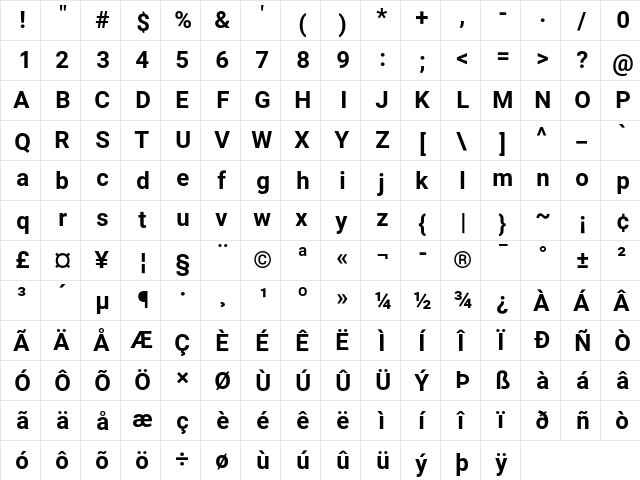
Asimov Dist Font Preview
Asimov Dist
Asimov Dist Font Details
Design Context for Asimov Typeface
Asimov takes a measured approach to typography — its balanced proportions and neutral character make it a reliable workhorse for both digital and print work.
Pro Tip: Use Asimov in both headline and body roles to test its range before committing to a single application.